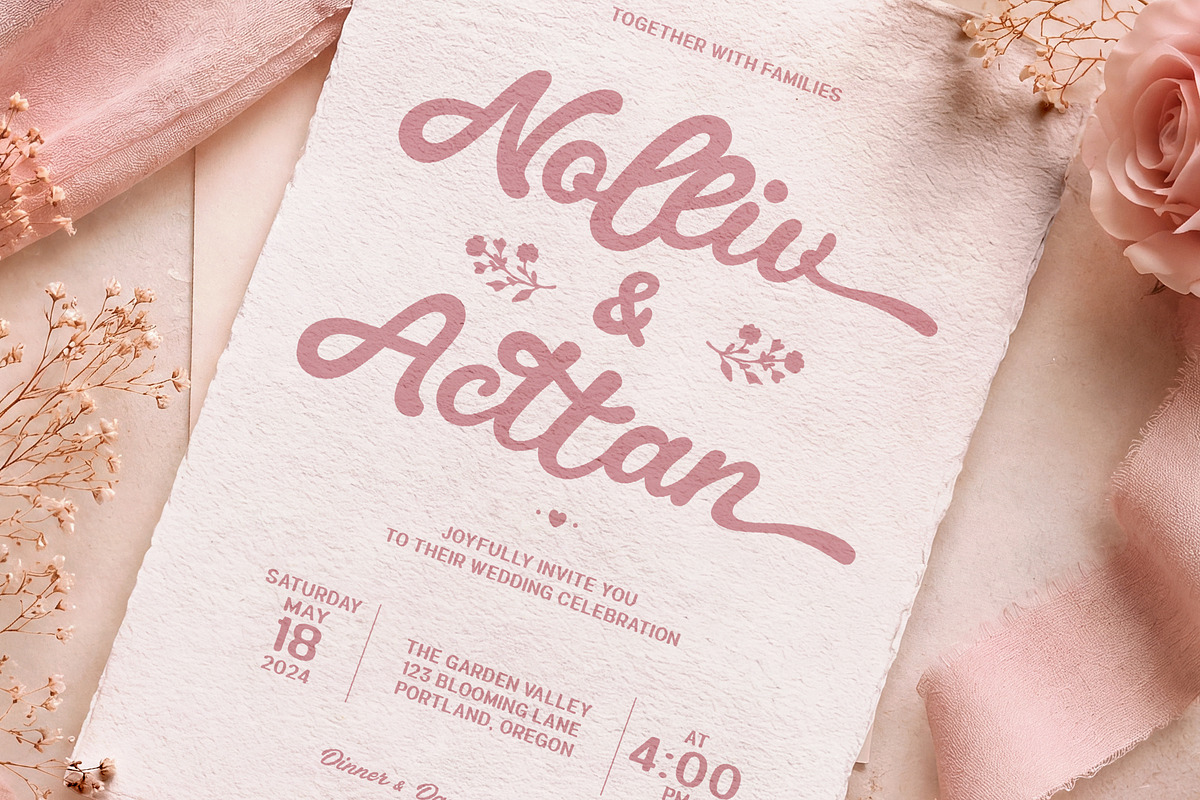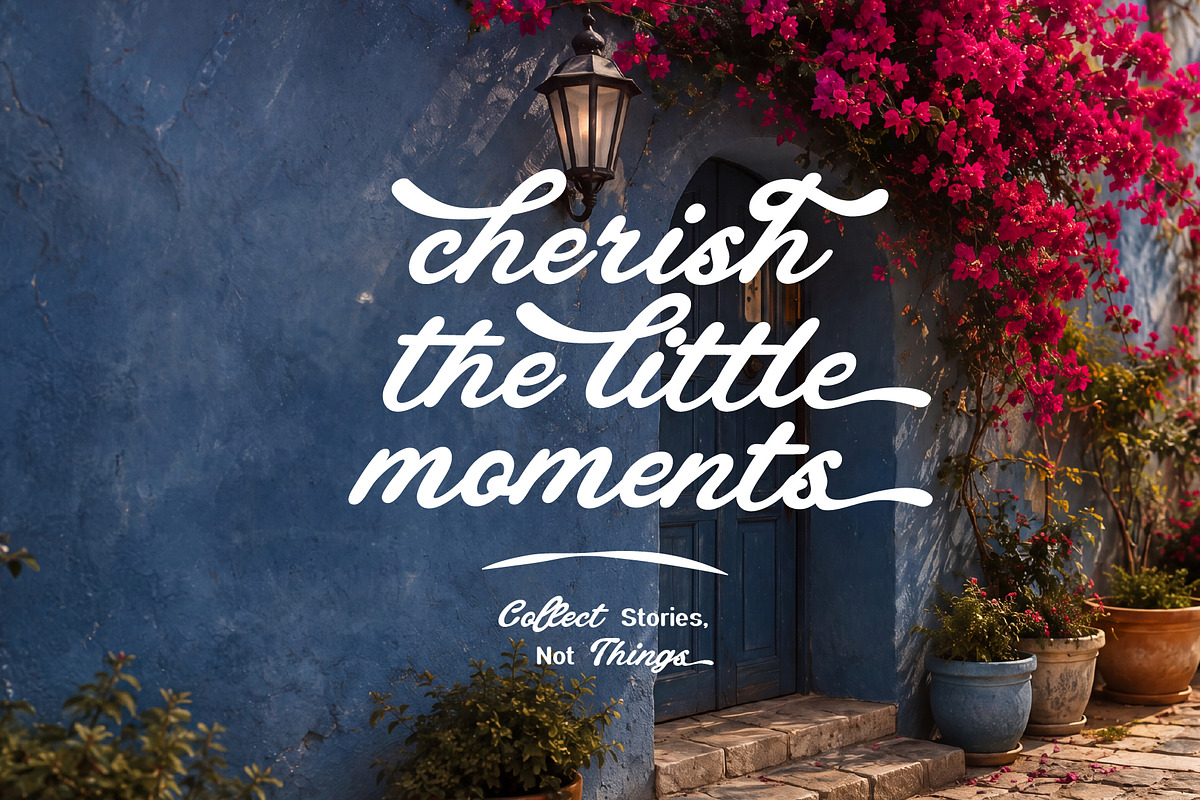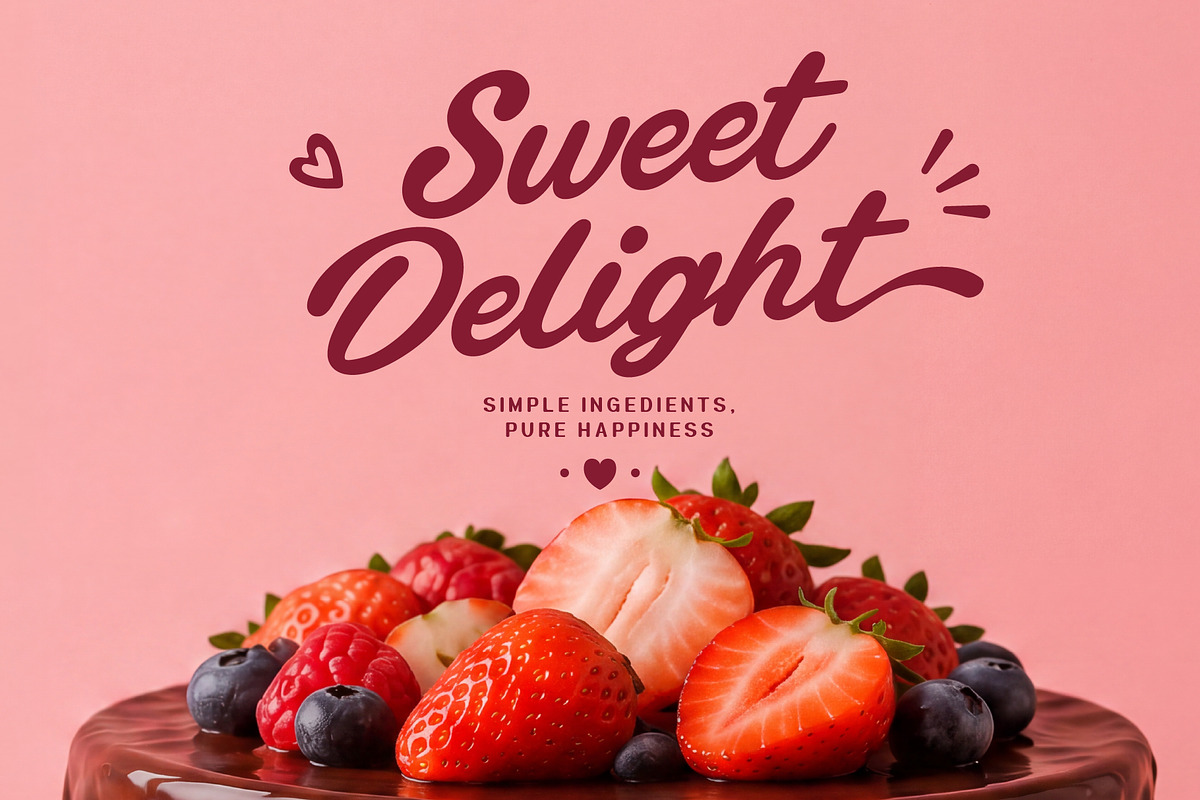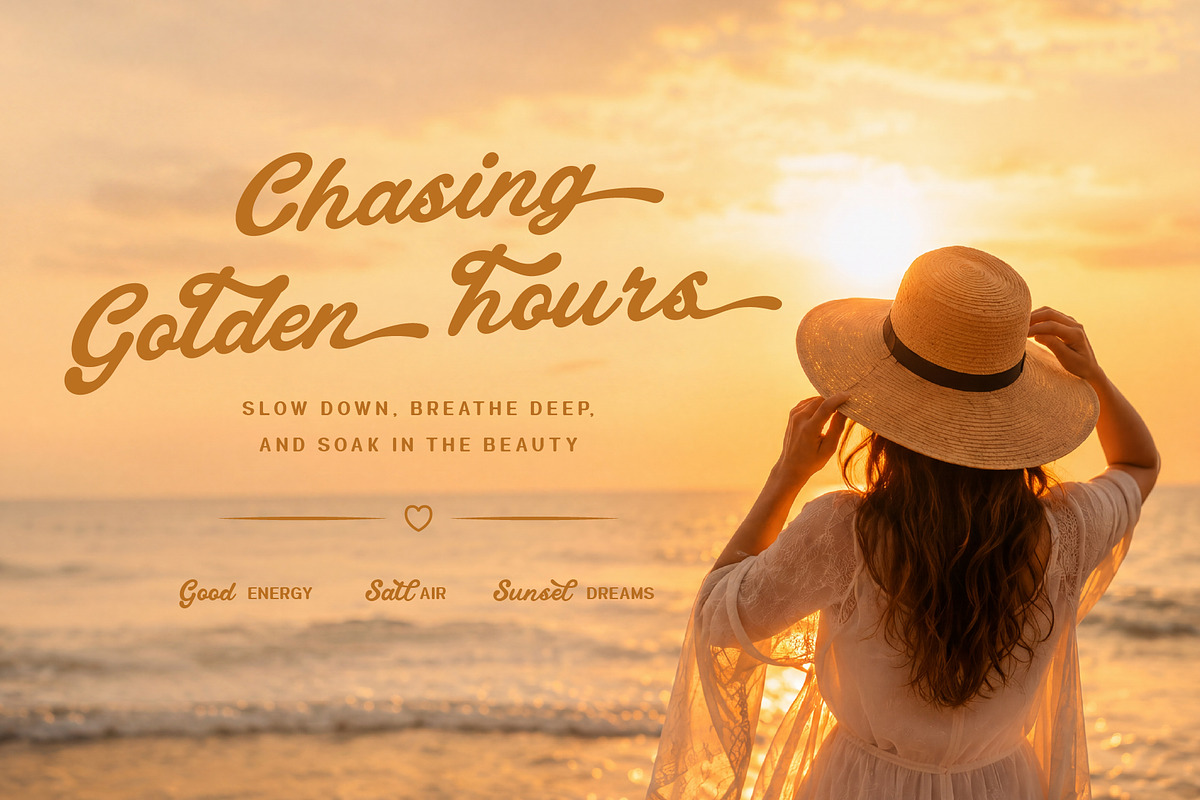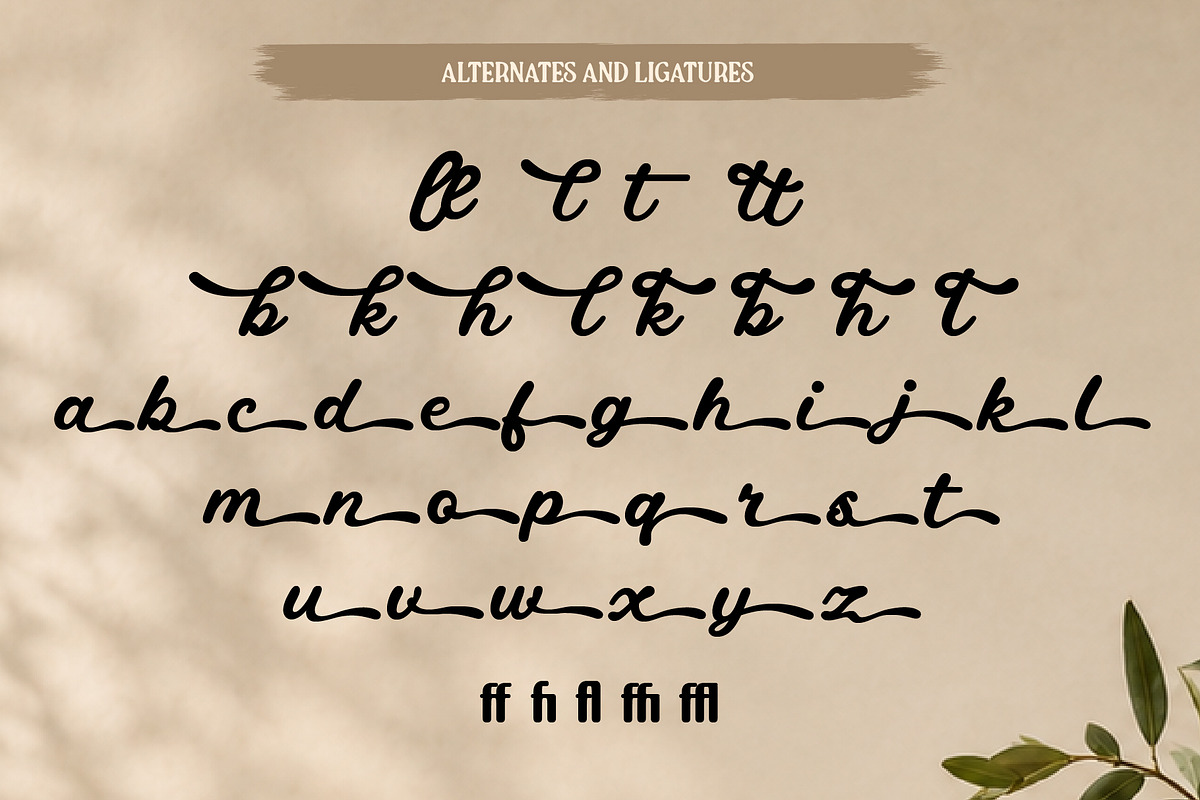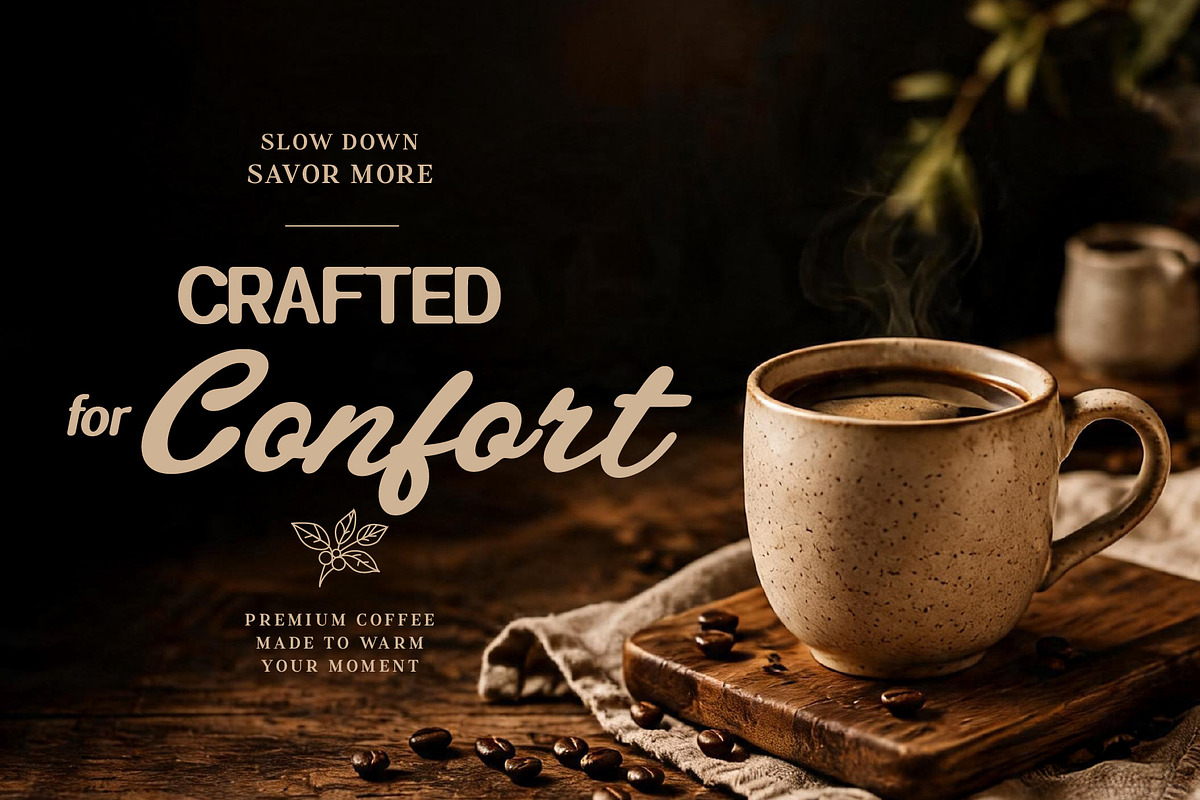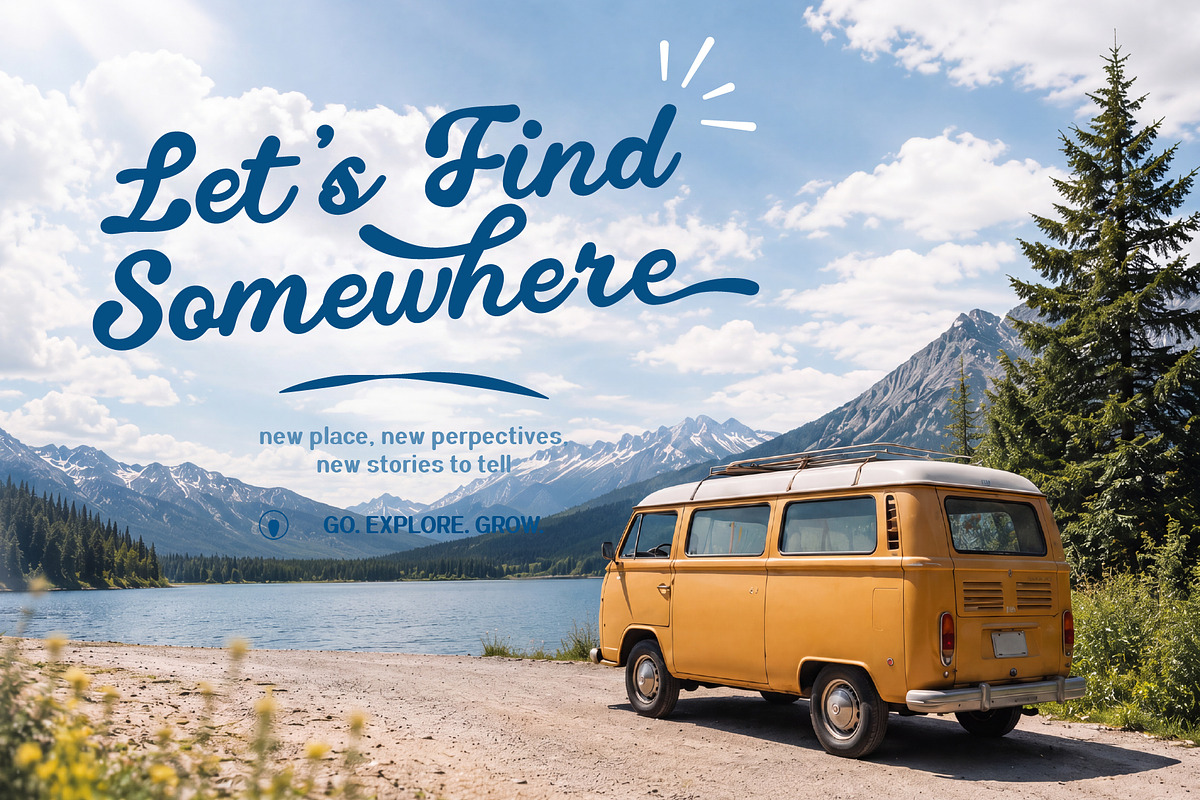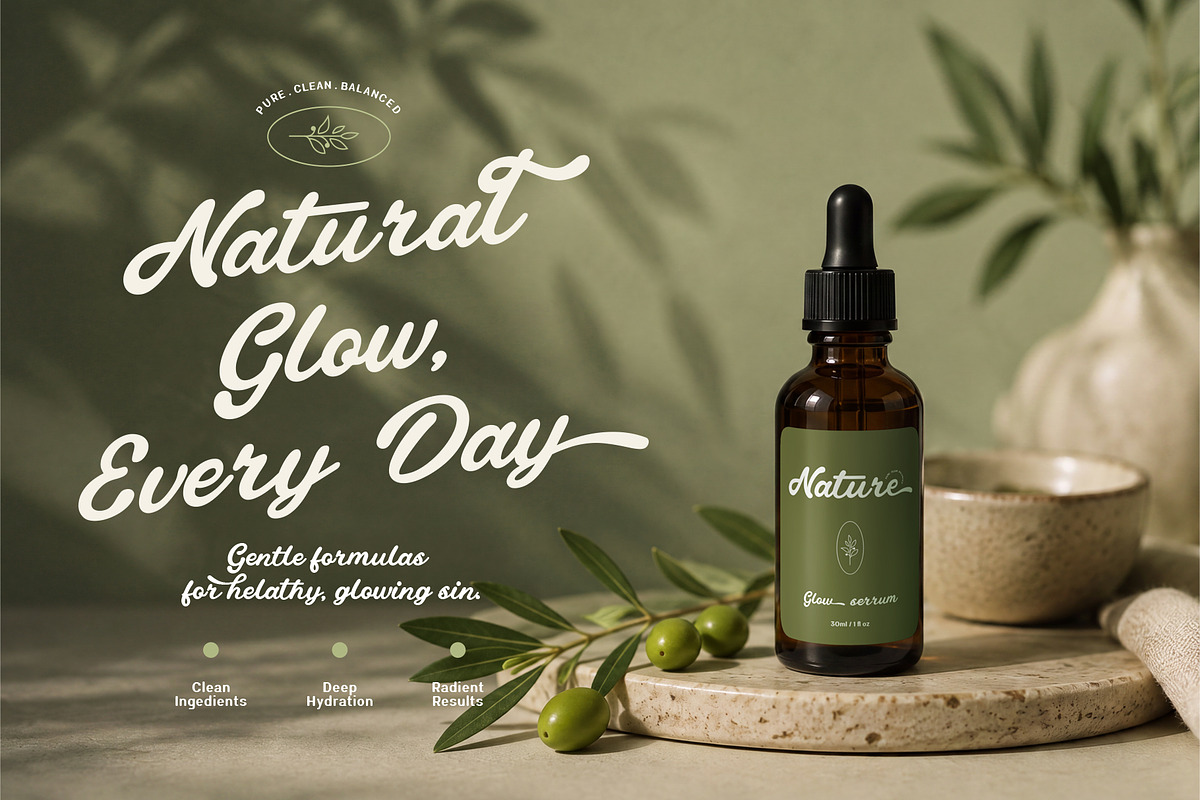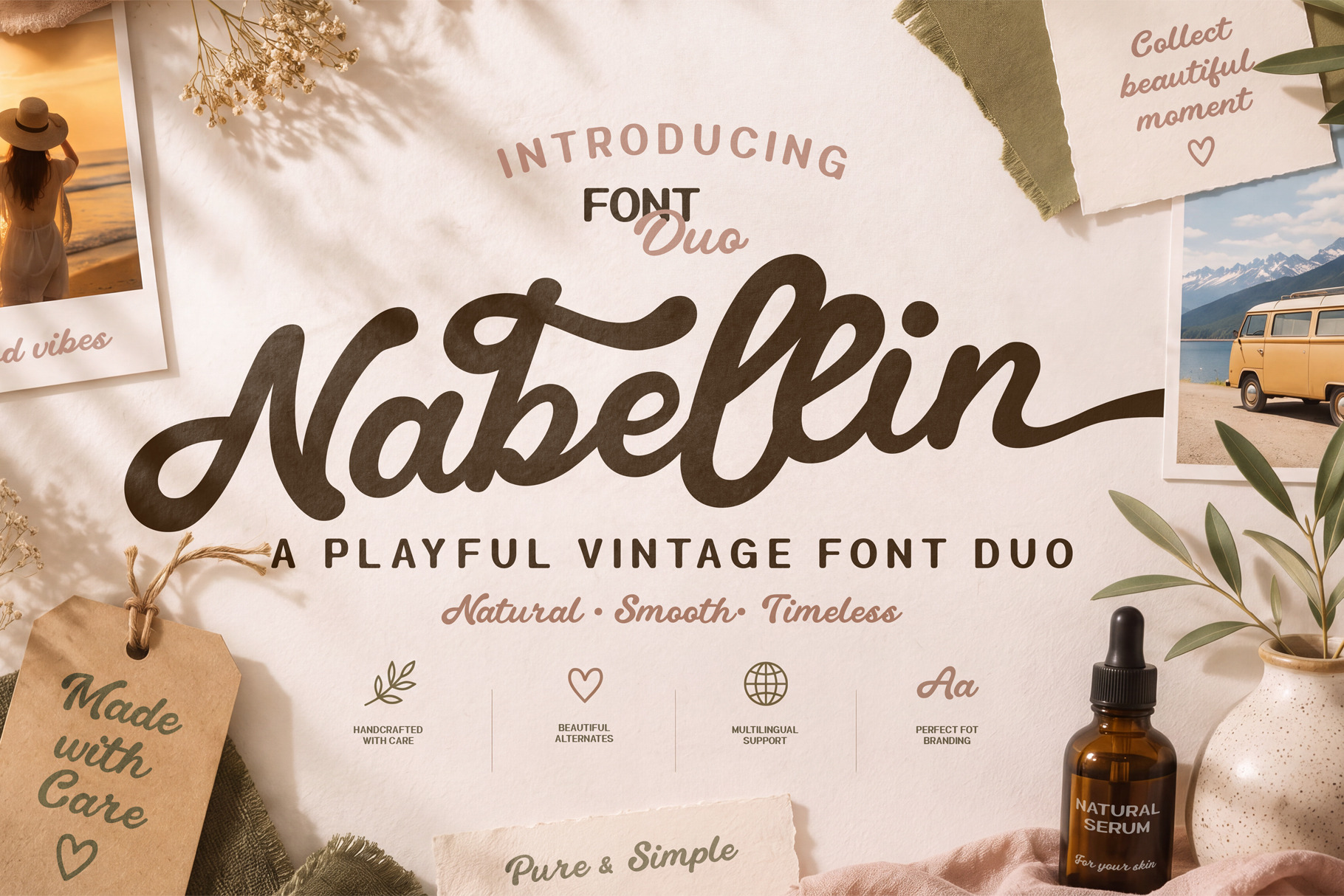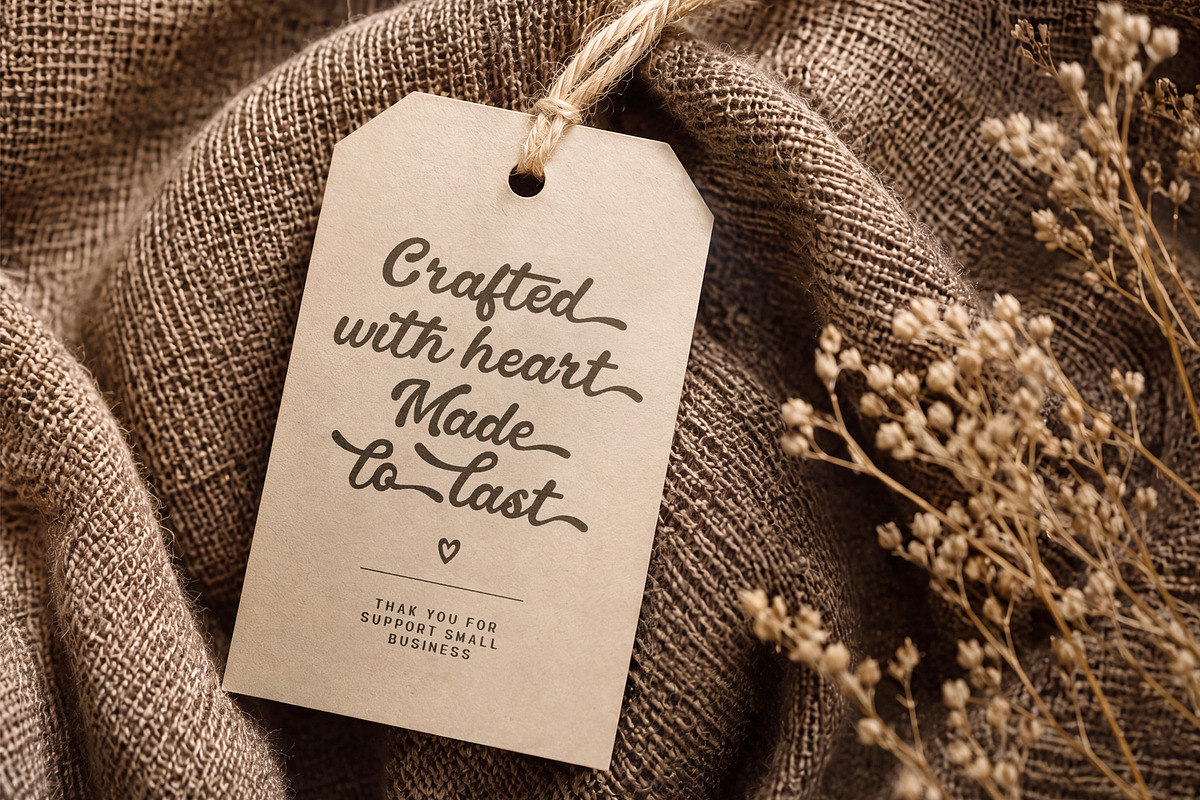
Nabellin – Playful Vintage Font Duo
Meet Nabellin — a playful vintage font duo crafted to bring warmth, charm, and effortless personality to your designs. Inspired by nostalgic aesthetics, handcrafted details, and the carefree spirit of retro-inspired branding, Nabellin combines a lively script with a clean supporting style to create a versatile and memorable typographic pairing.
With its smooth flowing curves, expressive letterforms, and friendly vintage character, Nabellin feels both handcrafted and polished. The script brings a natural, personal touch, while the complementary style adds structure and balance, making the duo easy to use across a wide range of creative projects.
Playful yet refined, nostalgic yet fresh, Nabellin is designed for creators who want typography that feels warm, approachable, and full of character.
Perfect for branding, logos, packaging, café and restaurant identities, beauty products, lifestyle brands, fashion projects, handmade goods, social media content, labels, invitations, posters, and vintage-inspired designs.
Whether you're creating a cheerful brand identity or adding a nostalgic touch to your next project, Nabellin brings a friendly and expressive voice that feels effortlessly distinctive.
Features • Script & Supporting Font Duo • Smooth & Playful Letterforms • Beautiful Ligatures & Alternates • Vintage-Inspired Character • Multilingual Support • Punctuation & Numerals
Designed to become a versatile addition to your typography collection, Nabellin is ready to bring personality, warmth, and timeless charm to your next creative project.